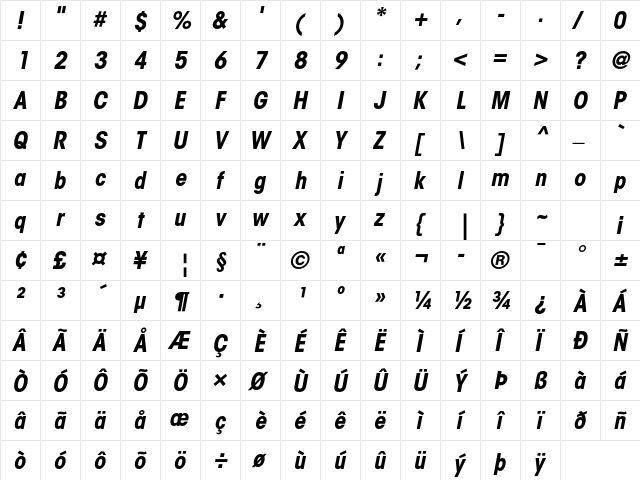
ITC Avant Garde Gothic Std Bold Condensed Oblique Font Preview
| Designer | Herb Lubalin, Tom Carnase, Ed Benguiat, Adobe Type Staff |
Design Context for ITC Avant Garde Gothic Std Typeface
ITC Avant Garde Gothic Std takes a clean, functional approach — its unadorned letterforms prioritise legibility and work reliably across screen and print environments. Its italic angle brings a sense of urgency and motion to the letterforms. Its bold stroke weight gives it real presence on the page. Its narrow stance lets it pack a punch even in space-constrained designs.
Well-suited to navigation labels, product packaging, and anywhere legibility at scale is essential.
Font Pairing: Use ITC Avant Garde Gothic Std for headlines alongside a lighter-weight sans or serif for body copy to establish clear visual hierarchy.
Pro Tip: Use ITC Avant Garde Gothic Std tightly set in headlines and banners — its condensed proportions make it ideal for maximum impact in minimum horizontal space.